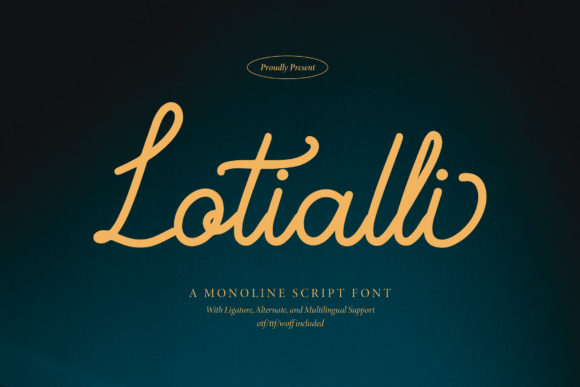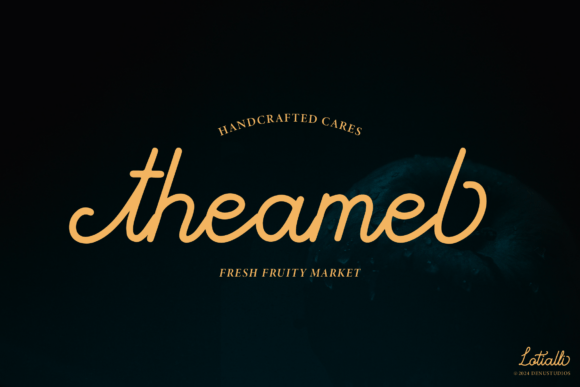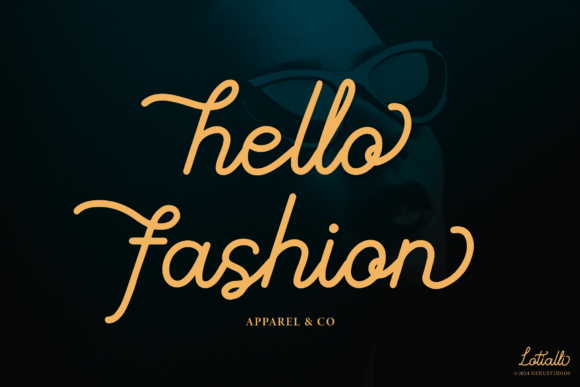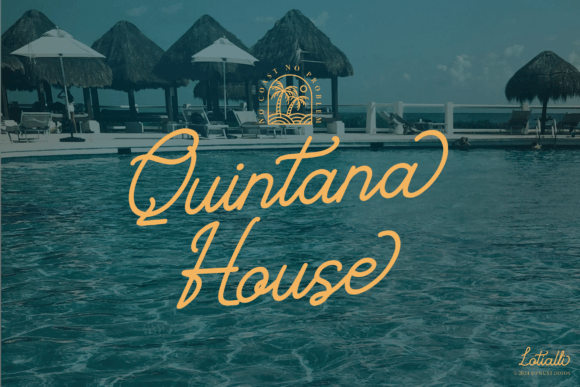
Lotialli Font: Elegant Monoline Script for Modern Logo Design
About the Lotialli Font
Elevate your designs with Lotialli Font, a font that combines sophistication with readability. Lotialli is a smooth and stylish monoline script font, perfect for creating elegant and flowing text. Its single-line, continuous strokes give it a clean, modern look. Lotialli is ideal for logos, invitations, and any design needing a touch of grace and simplicity.
Lotialli’s elegant simplicity makes it a strong choice for branding projects requiring a touch of sophistication, particularly logos, short headlines, and invitations. It also works well on packaging for high-end products or boutique brands. However, its delicate nature makes it unsuitable for body text or UI elements where readability is paramount; long stretches of Lotialli would prove difficult to read.
Pairing Lotialli effectively hinges on contrast. A geometric sans-serif like Montserrat or a clean, modern serif like Lato would provide a solid, readable counterpoint. For a more playful feel, consider pairing it with a rounded sans-serif such as Bebas Neue. Avoid pairing it with other script fonts, as this can create visual clutter.
Lotialli projects a refined, modern, and slightly feminine personality. Its graceful curves convey elegance without being overly ornate. It is best suited for brands aiming for a sophisticated and approachable image.
Lotialli Font Usage Examples
Lotialli Font Example